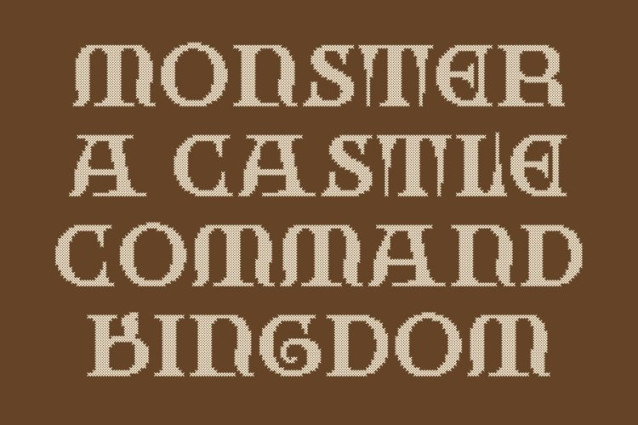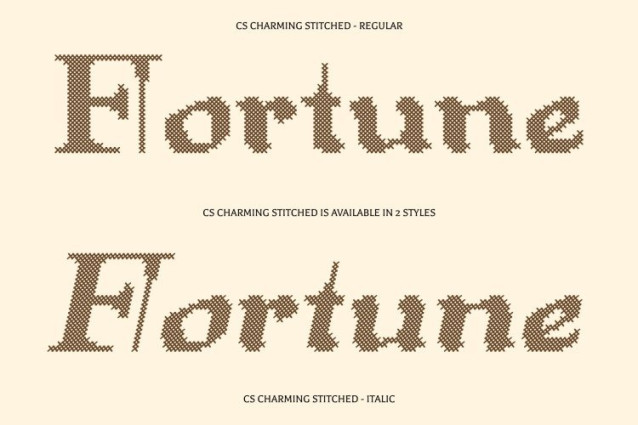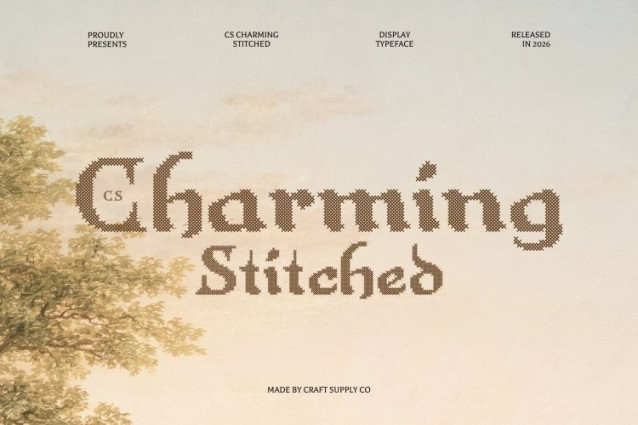
CS Charming Stitched Font
CS Charming Stitched Font is a classic display font inspired by the graceful uncial letterforms of medieval handwriting. With its smooth curves, rounded shapes, and thick strokes, the font evokes the timeless elegance of ancient manuscripts. Enhanced with a stitched style inspired by thread sewn or embroidered on fabric, this version introduces a handcrafted texture that adds warmth, depth, and a distinctive artisanal character to its historical form.
Artistic Letterforms with Embossed Stitch Detail
The unique and expressive shapes of this font are enriched with a subtle cross-shaped stitch pattern that overlays each character. This embroidered effect creates an embossed, fabric-like texture that enhances the visual richness of the letterforms. The stitched detailing adds a classic, nostalgic, relaxed, and warm impression.
Historical Elegance with Creative Personality
Drawing inspiration from medieval manuscripts and historical calligraphy, this font offers a distinctive typographic voice that feels both artistic and timeless. The combination of flowing uncial forms and handcrafted stitched texture gives the font a charming, expressive quality that stands apart from conventional display typefaces.
Perfect for Heritage and Elegant Design Projects
This is ideal for wedding invitations, book covers, heritage branding, greeting cards, posters, and decorative design projects. Its blend of historical uncial elegance and stitched craftsmanship creates a memorable typographic presence, perfect for designs that celebrate tradition, artistry, and nostalgic charm.